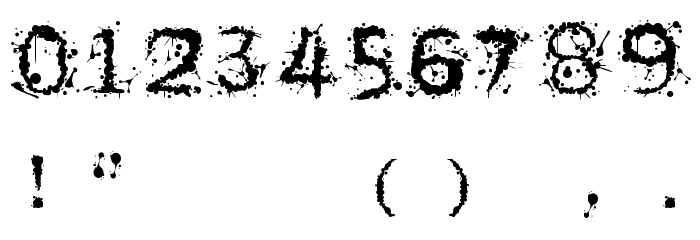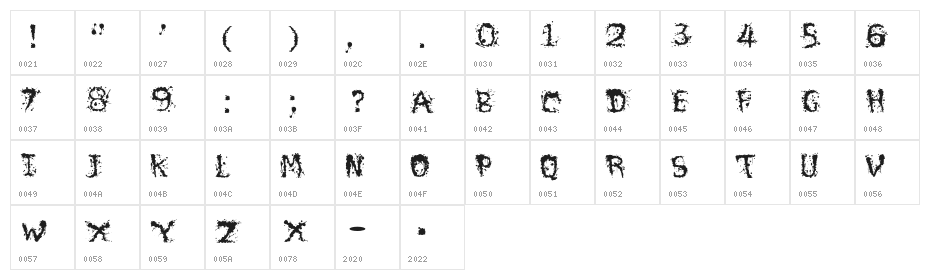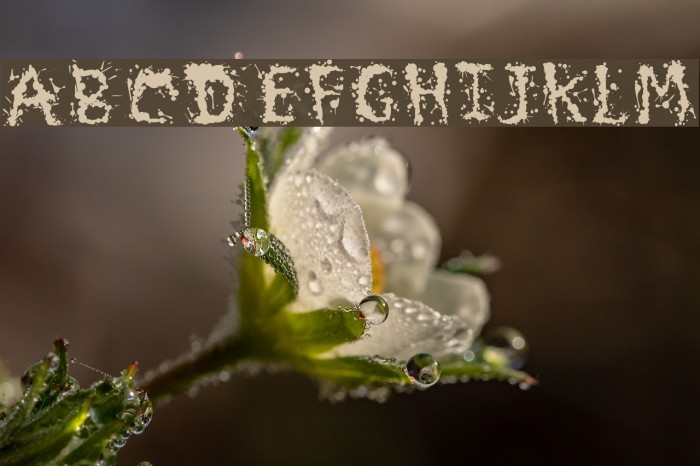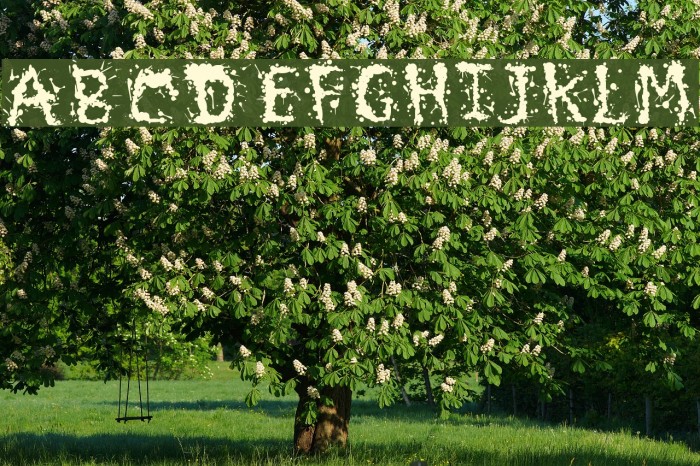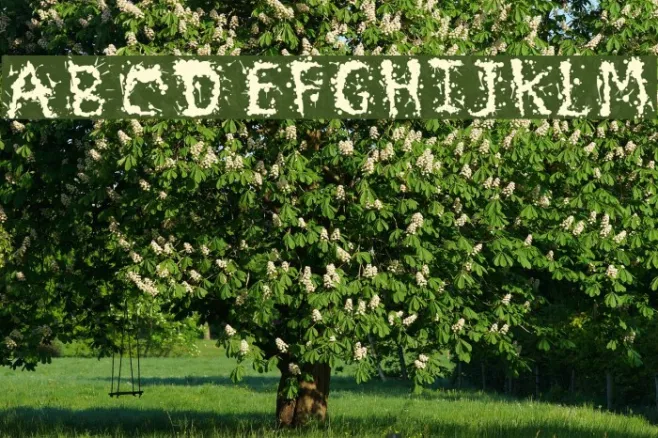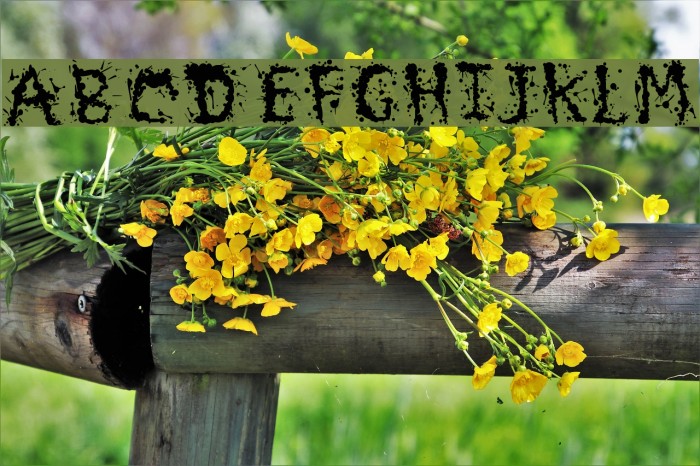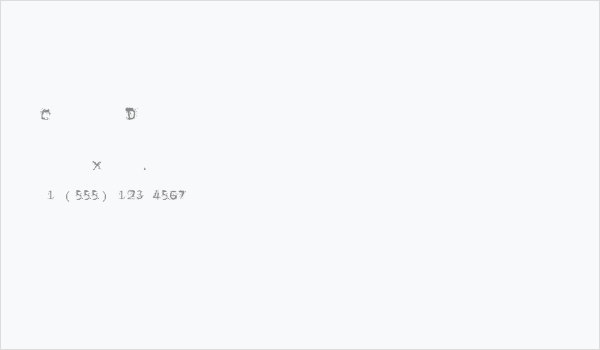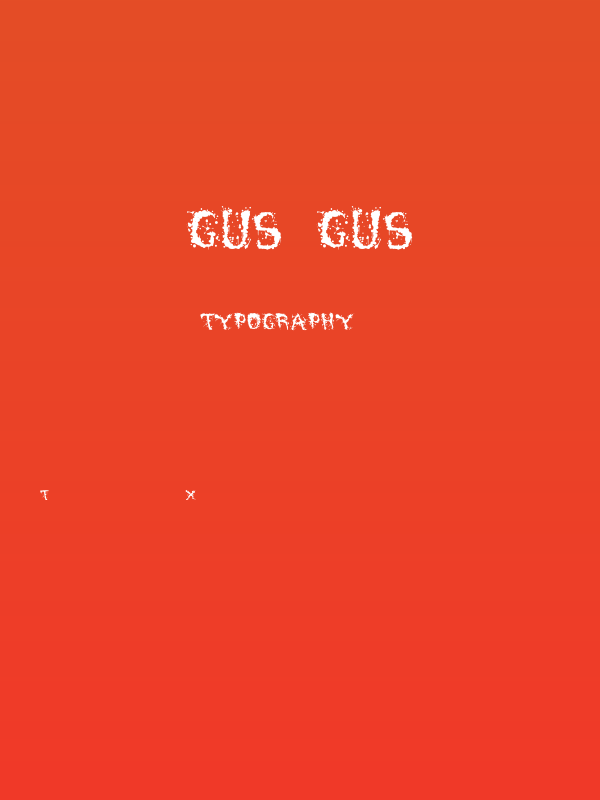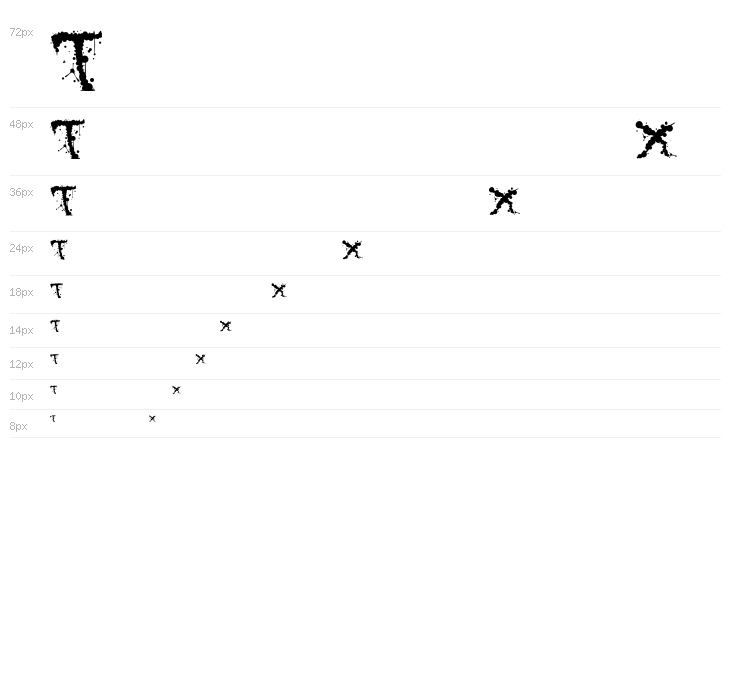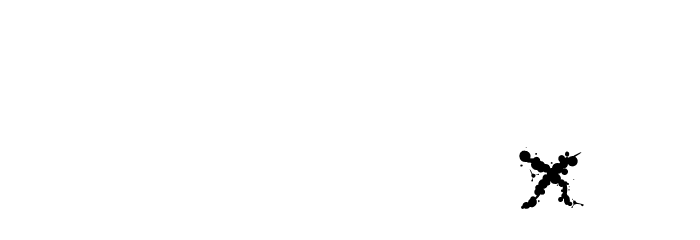
gus-gus Font
gus-gus Description
This font features a highly distressed and grungy aesthetic, with each character appearing as if it has been splattered with ink or paint. The irregular edges and varying thicknesses give it a chaotic and energetic feel, making it stand out with a unique texture. The uppercase and lowercase letters maintain this distressed style consistently, while the numbers and special characters follow suit, ensuring a cohesive look across all glyphs. This font is perfect for projects that require a raw, edgy, and unconventional appearance.
| Overall Style | Grunge, Distressed |
| Proposed Projects | Ideal for album covers, street art designs, edgy posters, and alternative branding. |